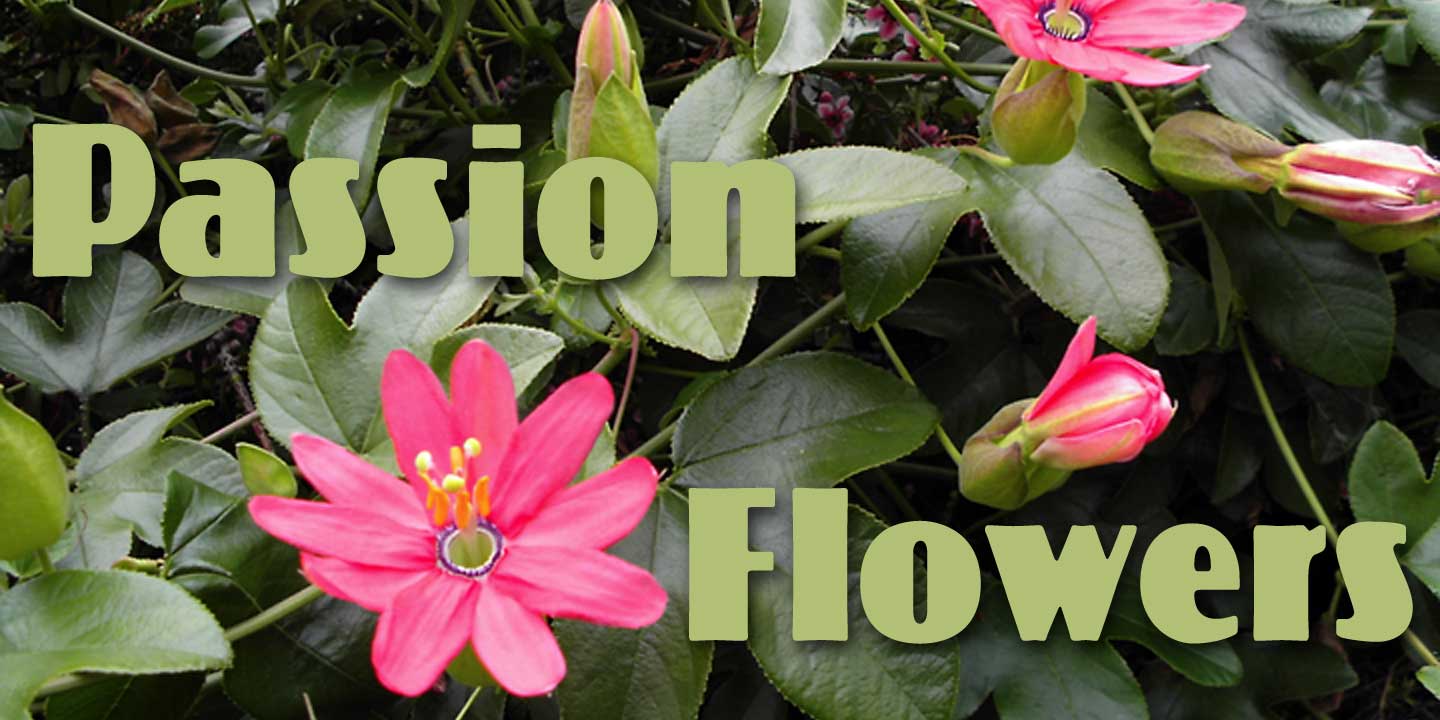
Koloss CT Condensed
A wonderful, bold art deco font originally designed by Jakob Erbar in 1924. Since Koloss is a bit chunky and wide, I thought a condensed version would be useful. Here is the result. Koloss is also available in Bold and Wave